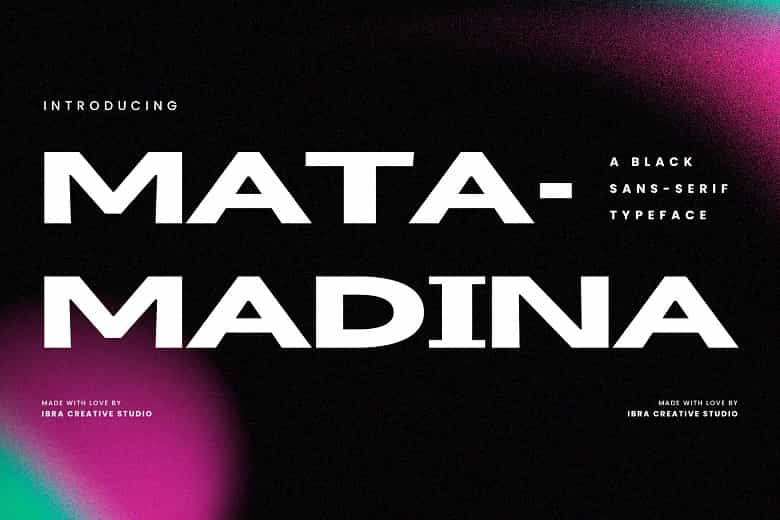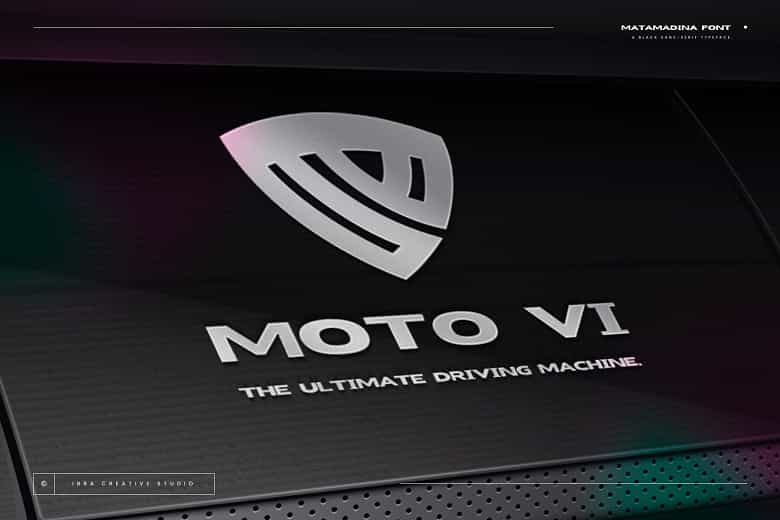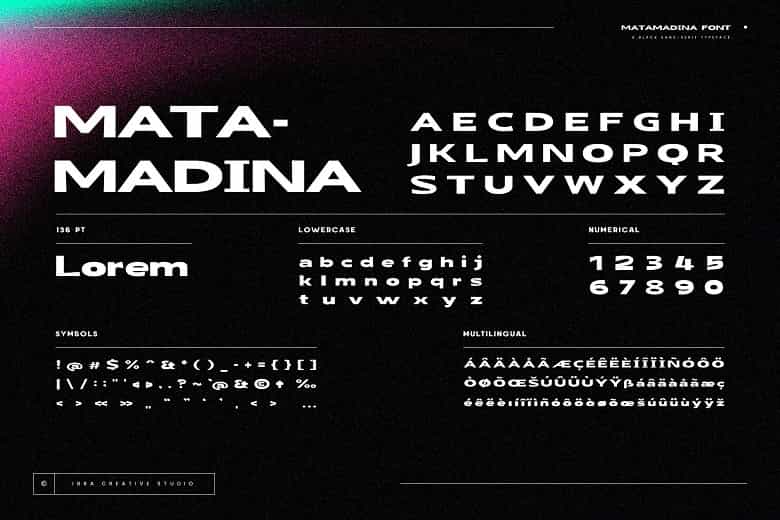
Matamadina is a stylish and elegant black sans-serif font with clean lines and contemporary look that is both elegant and understated. The characters are quite daring and have a clear cut appearance, the lines are of uniform thickness which gives the characters a good shape.